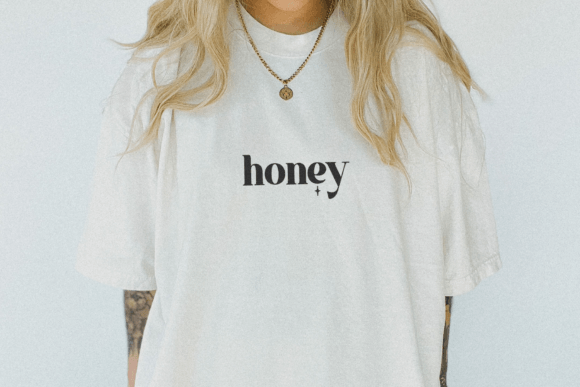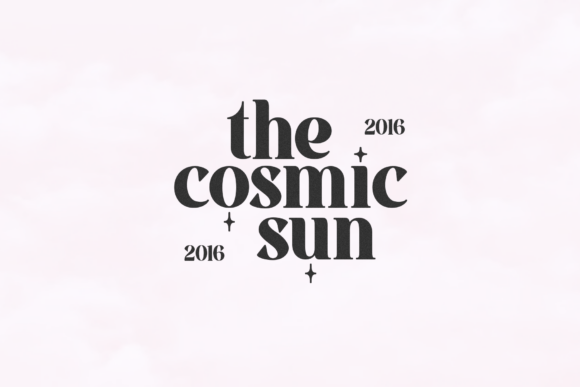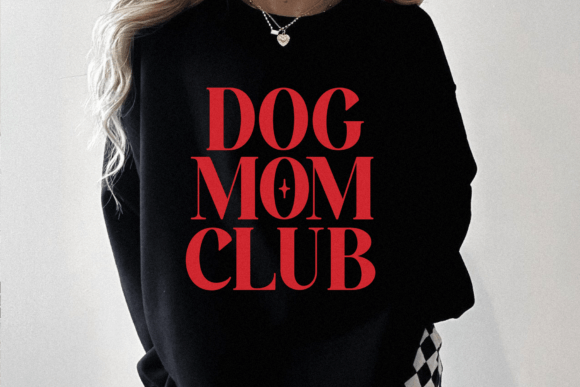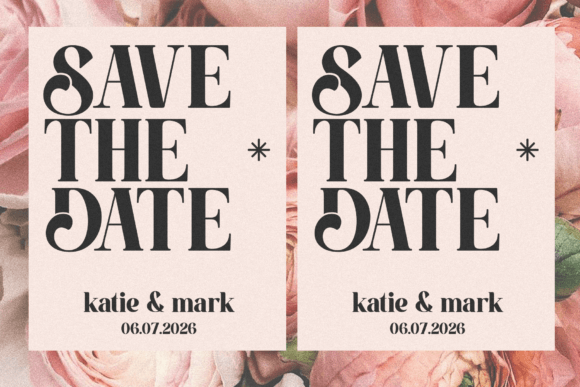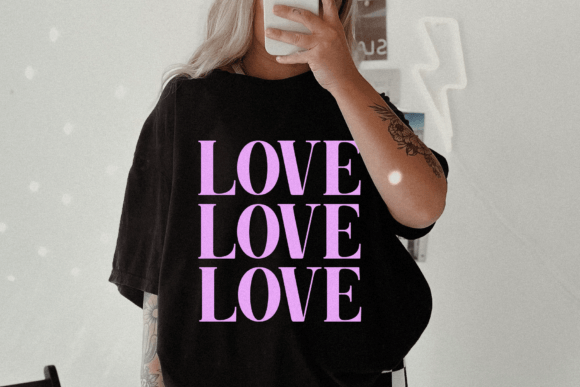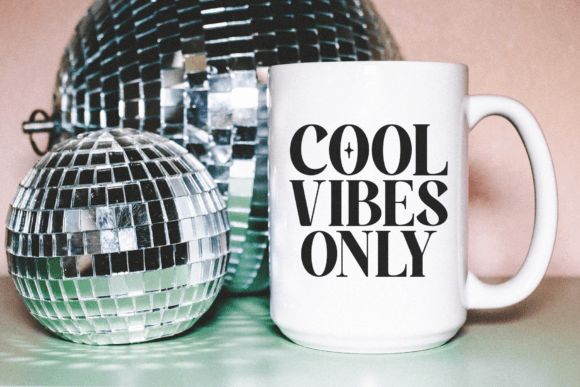
Dreamers Font: Elevate Your Designs with a Modern Serif
Are you tired of using the same old fonts in your designs? Look no further than the Dreamers Font, a modern serif font that is sure to bring a touch of elegance and sophistication to any project. With its unique diamond embellished vowel glyphs, this font is perfect for designers and crafters looking to add a bit of personality to their work.
A Modern Serif with a Lot of Character
The Dreamers Font is a modern serif font that is designed to make a statement. Its sleek lines and classic serif details make it perfect for a wide range of design applications, from logos and branding to quotes and shirts. But what really sets this font apart is its unique diamond embellished vowel glyphs. These decorative touches add a bit of whimsy and flair to any design, making it sure to stand out from the crowd.
One of the best things about the Dreamers Font is its versatility. It’s perfect for a wide range of design applications, including:
- Logos and branding: The Dreamers Font is perfect for creating unique and memorable logos that will help your brand stand out.
- Quotes and posters: The font’s elegant lines and decorative touches make it perfect for creating eye-catching quotes and posters.
- Shirts and apparel: The Dreamers Font is a great choice for designing custom shirts and apparel that will make a statement.
- Craft projects: Whether you’re creating handmade cards, scrapbook pages, or other craft projects, the Dreamers Font is a great choice.
What Makes the Dreamers Font Unique?
So what makes the Dreamers Font so unique? The answer lies in its diamond embellished vowel glyphs. These decorative touches are scattered throughout the font, adding a bit of personality and flair to any design. The vowel glyphs are carefully designed to complement the font’s modern serif style, creating a look that is both elegant and eye-catching.
Why Choose the Dreamers Font?
There are many fonts on the market that claim to be modern and elegant, but the Dreamers Font stands out from the crowd. Here are just a few reasons why:
- Unique design: The diamond embellished vowel glyphs make this font truly one-of-a-kind.
- Versatility: The Dreamers Font is perfect for a wide range of design applications.
- Elegant lines: The font’s modern serif style is both sleek and sophisticated.
- Easy to read: Despite its decorative touches, the Dreamers Font is easy to read and understand.
Tips for Using the Dreamers Font
Here are a few tips for getting the most out of the Dreamers Font:
- Use it sparingly: While the Dreamers Font is perfect for headlines and titles, it may be too ornate for body text. Use it sparingly to create a sense of hierarchy in your design.
- Pair it with a simple font: To create a striking contrast, pair the Dreamers Font with a simple sans-serif font.
- Experiment with colors: The Dreamers Font looks great in a variety of colors, from bold and bright to subtle and muted. Experiment with different colors to find the perfect look for your design.
In conclusion, the Dreamers Font is a modern serif font that is sure to elevate any design. With its unique diamond embellished vowel glyphs and elegant lines, it’s perfect for a wide range of design applications. Whether you’re a designer or crafter, the Dreamers Font is a great choice for anyone looking to add a bit of personality and flair to their work. So why wait? Give the Dreamers Font a try today and see the difference it can make!